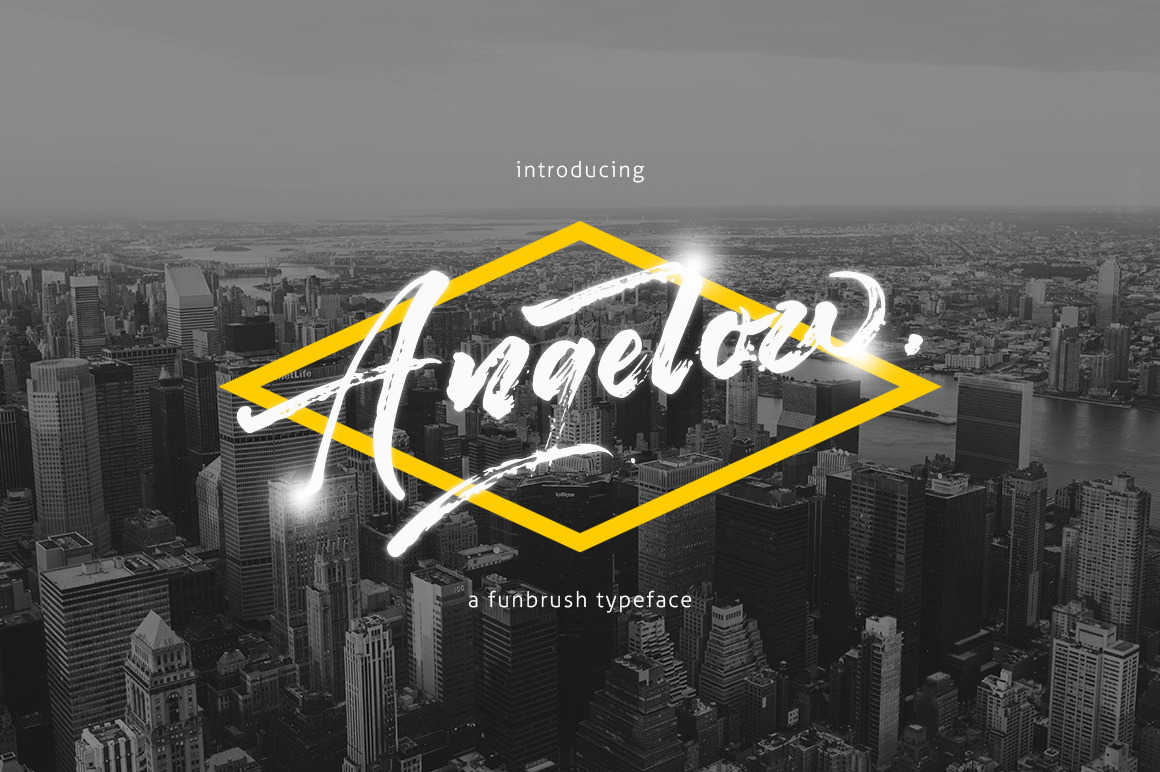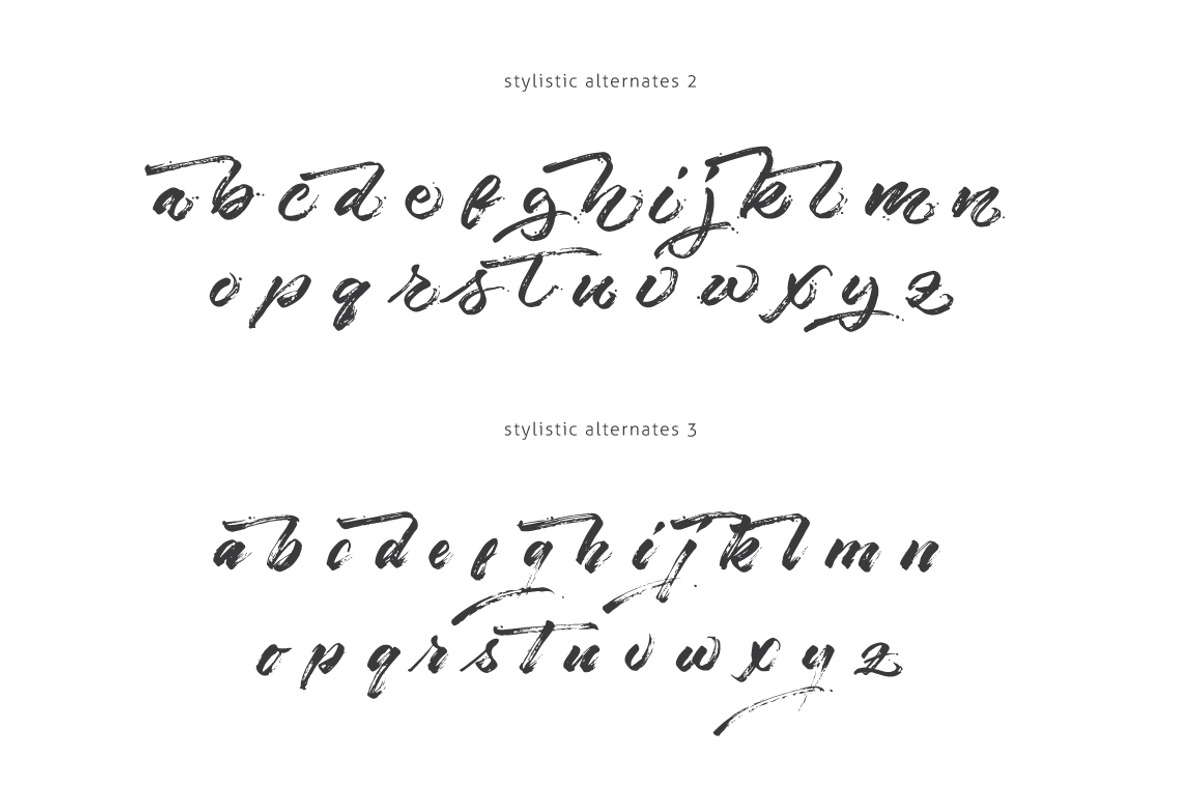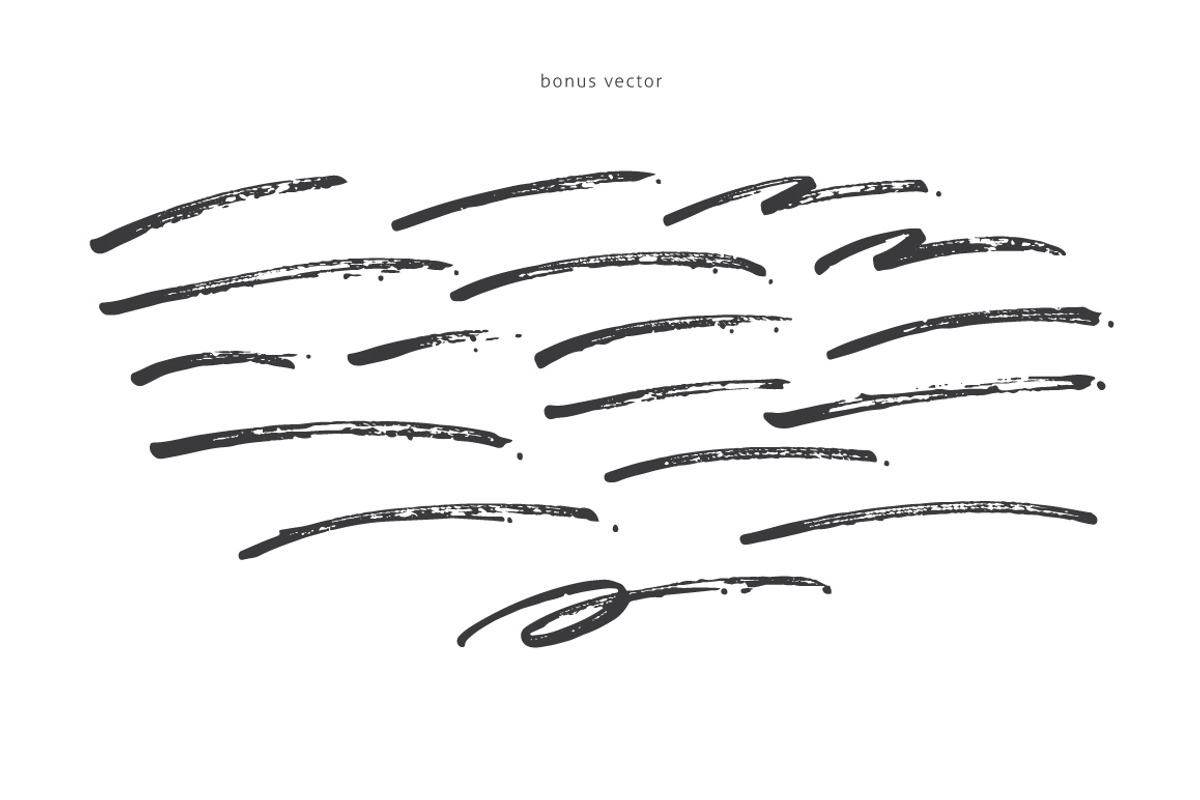
Angelow Typeface
Hi world!!...Thanks for checking out the Angelow brush font! It's simple and easy to create awesome lettering, just type your words and then you will immediately see the great results. Hand-painted with distinctive rough brush strokes, Angelow is bound to make a big impact on logos, apparel, quotes, product packaging & more.
It comes with upper and lowercase characters, can be used for various purposes. such as headings, logos, wedding invitation, t-shirt, letterhead, signage, label, news, posters, badges etc.
- Includes a range of multilingual support